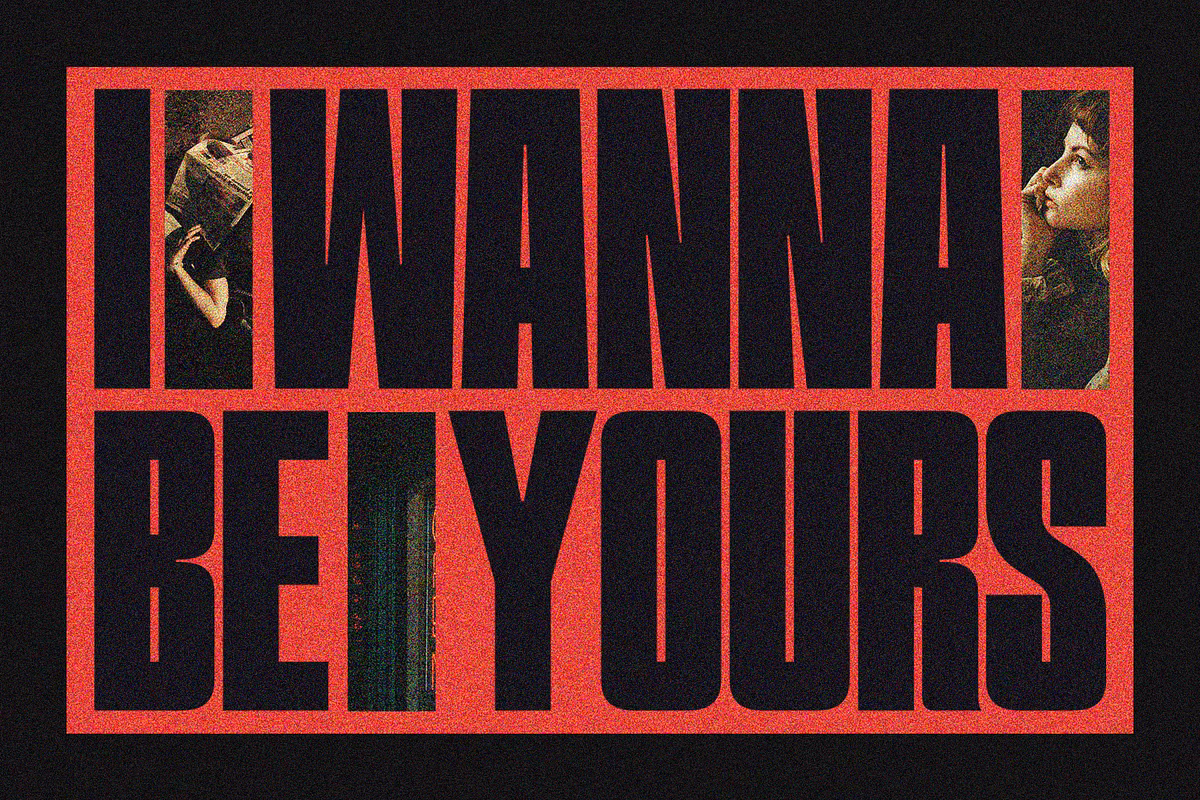
Hightone | Condensed Duo Font
Hightone: Retro-Inspired Condensed Duo Font for Modern Design
The Hightone font duo mixes retro charm with style. The Hightone family includes two matching styles – Italic Slanted. The Hightone fonts help you create titles, logos, posters, album covers and lifestyle branding. The Hightone letters have spacing and tall height. The Hightone design gives a look that feels both old and new. The Hightone works for design projects.
An example showcasing the Hightone font in a design project.
I see the design of Hightone mix looks, with feel. The design of Hightone uses letters that look like type and stays smooth linking past and present. The Regular style of Hightone gives a look. The Italic/Slanted style of Hightone adds a feel. The Regular style and the Italic/Slanted style make the font work, in design situations.
Hightones tight letter spacing makes the letters bold. The tight spacing gives Hightone a look that gets attention without being too much, for the viewer. Hightones tall characters add a sense of elegance and class. Hightone works well for projects that need a touch of class and a hint of nostalgia.
In my experience the retro‑inspired font helps designs bring the feel of eras and also catches the eye of viewers. I also see the retro‑inspired font serving projects and commercial projects alike.
I use Hightone because Hightone offers character sets and features that make the Hightone font easier to use. Hightone works well. Hightone supports all caps so you can use Hightone for headlines and titles that need to stand out. Also Hightone has support so designers can use Hightone in languages and keep the look the same.
Illustration of Hightone’s character sets and features.
The font includes a set of numbers and punctuation. The font works for uses from branding to layouts. The font works well. When you design a poster the font gives you the tools you need. When you design an album cover the font gives you the tools you need. Hightone gives you the tools you need to build stories. I have used the font on a poster and the font worked well.
Hightone is a font. I have used Hightone in design projects. Hightone works well across the different styles. Here are the main ways that Hightone does a job:
• Synthwave Events: Hightone’s retro flair is a choice, for material for synthwave music events. I think Hightone’s retro flair captures the energy of the synthwave genre. Hightone’s retro flair feels right, for the scene.
• Fashion Labels: I think the design of Hightone works well for fashion branding. I see the design of Hightone gives a look that stands out in a market. The design of Hightone feels smooth and old style and the design of Hightone helps a brand be noticed among others.
• Editorial Layouts: For the magazines or the online publications Hightone can lift designs. Hightone provides a typeface that looks good and is easy to read for the headlines and, for the body text. Editorial Layouts get a look, with the Hightone typeface.
• Posters and Album Covers: I see Hightone on the posters and the album covers and Hightone gives a look. Hightone makes images that stay in the mind and connect with the audience.
Design examples showcasing Hightone in editorial layouts.